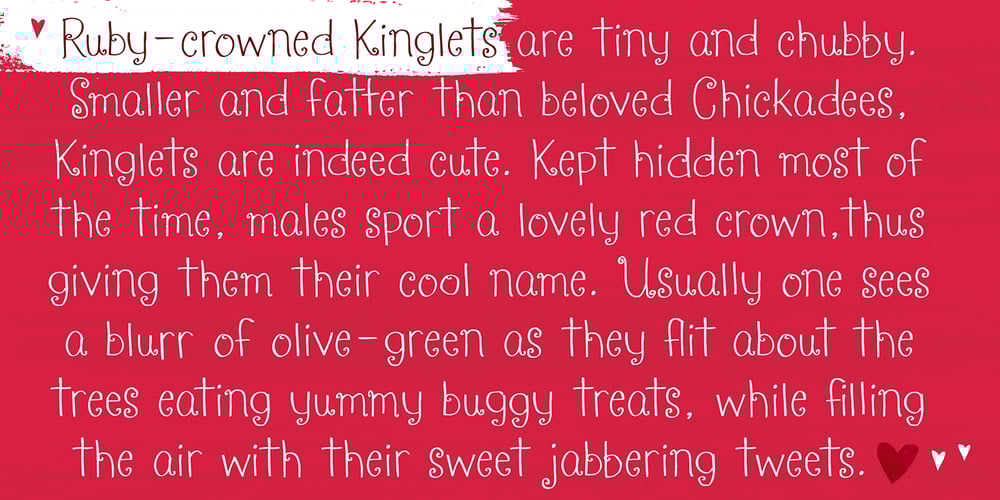
Kinglet Font Family was designed by Amy Dietrich and published by Atlantic Fonts. Kinglet contains 1 styles and family package options. Digging a typeface with a sweet mood? Kinglet is sassy, hand-drawn, and sports a royally fun set of double letter ligatures. Like it’s namesake, Kinglet is lively and lovable.